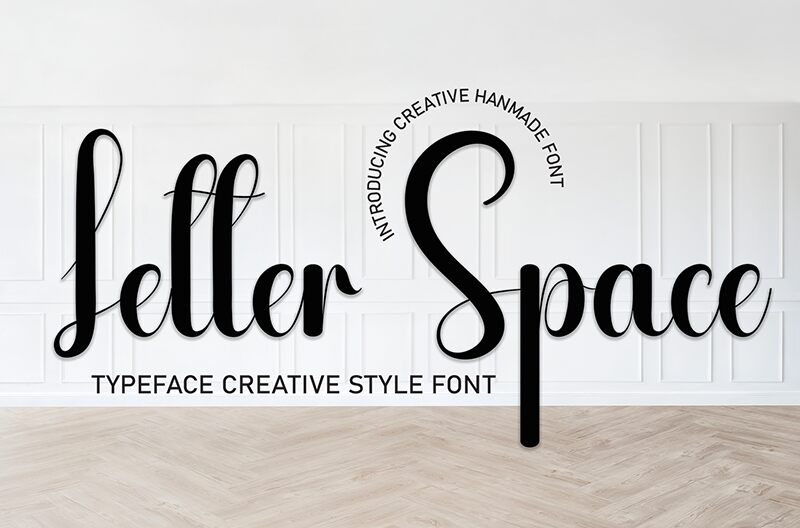
Letter Space
Letter Space font by Andi Moz is a condensed handwritten font with sophisticated flowing design that resembles signature handwriting. Combining style and elegance, its lettering includes decorative and gorgeous classical elements — all brought together in a stylish arrangement.
Use this free handwritten font to decorate product labels, magazine covers, invitation cards, luxury packaging boxes and gift bags etc. When slightly enlarged, Letter Space will also be the perfect tool to highlight webpage headings and sub-headings.